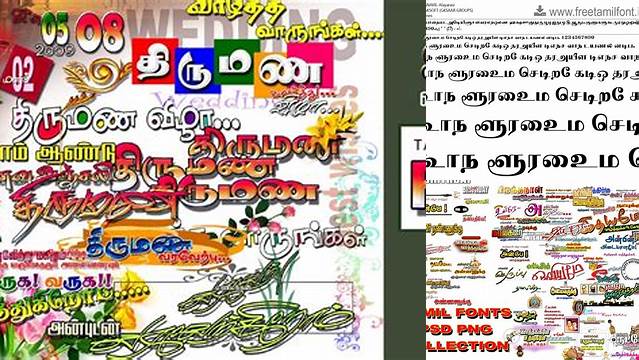
Tamil Font PSD Files: Download Free And Design Like A Pro
Tamil fonts are essential for anyone working with the Tamil language in graphic design. Whether you're creating posters, websites, or social media content, having access to the right fonts can make all the difference. This comprehensive guide provides everything you need to know about Tamil font PSD files free download, ensuring you can easily access and utilize these valuable resources. We'll cover the basics, explore the best places to find free downloads, and offer tips on how to use these fonts effectively in your design projects. So, let's dive in and discover how to get started with Tamil font PSD files free download!
Tamil Font PSD Files: What You Need to Know
Tamil font PSD files are essentially Photoshop files (.psd) that incorporate Tamil fonts. This means that when you open these files in Adobe Photoshop, you'll have access to pre-designed text layouts and elements using the Tamil script. This can be a huge time-saver, especially if you're new to Tamil typography or want to quickly create professional-looking designs. The benefit is you can easily customize the text, colors, and overall look of the design to suit your specific needs. These files can range from simple text effects to more complex designs with multiple layers and elements.
The use of Tamil font PSD files can save you a significant amount of time and effort, allowing you to focus on the creative aspects of your design. Also, it provides a great way to learn about Tamil typography and design techniques by examining pre-made layouts and effects. Whether you're a professional designer or a hobbyist, leveraging the power of Tamil font PSD files free download can greatly enhance your ability to create visually appealing content in the Tamil language. Don't hesitate to experiment with different files and explore the possibilities that these resources offer.
Finding the Right Tamil Fonts
When searching for Tamil font PSD files free download, it's essential to understand the different types of Tamil fonts available. There are various styles, from traditional to modern, each with its own unique characteristics. Some fonts are designed for headlines, while others are better suited for body text. When choosing a font, consider the overall tone and style of your design. For example, a formal document might require a traditional font, while a social media post might benefit from a more modern and playful font. Exploring different fonts is an important factor.
Once you have the fonts installed, you can open the PSD file and begin editing. You can change the text, colors, and other elements to match your design vision. Experimenting with different fonts and styles can help you create unique and eye-catching designs. If you're unsure which font to use, try experimenting with a few different options. This will help you find the perfect font that complements your design and effectively communicates your message.
Optimizing Your Design with Tamil Fonts
Optimizing your design with Tamil font PSD files is about more than just choosing the right font; it's about ensuring your text is readable, visually appealing, and effectively conveys your message. Proper font selection is crucial, but equally important are elements like font size, spacing, and color. When using Tamil fonts, it's important to choose fonts that are designed for digital use. These fonts often have better readability on screens than fonts designed for print. Consider the environment in which your design will be viewed when choosing a font. Designs intended for mobile devices may require different font choices than those intended for print or desktop screens.
Font size plays a critical role in readability. Ensure that your text is large enough to be easily read on the intended device. Be sure to maintain a consistent font size throughout your design to maintain a professional and coherent look. The spacing between letters (kerning), words (tracking), and lines (leading) also impacts readability. Adjust these settings to ensure your text is not too cramped or too spread out. This can make a huge difference in the overall aesthetics. Don't underestimate the importance of color. Choose colors that complement your font and background. Ensure that there is sufficient contrast between the text and the background to ensure readability. Experiment with different color combinations to find what works best for your design.
Customizing Tamil Font PSD Files
Customizing Tamil font PSD files allows you to make the pre-designed templates truly your own. You're not just limited to the original design elements; you can transform them into something that perfectly fits your needs and style. The first step is always to open the PSD file in Adobe Photoshop. Once the file is open, you'll see the different layers that make up the design. Each layer may contain different elements, such as text, shapes, and images. You can select each layer to make changes.
11. Tips for Editing and Modifying Text in Tamil Font PSD Files
Editing and modifying text in Tamil font PSD files is a fundamental skill for designers seeking to adapt pre-designed templates. Adobe Photoshop is the main platform for editing text elements. First, open the PSD file. Select the text layer you want to modify in the Layers panel. Click on the text layer to select it. Then, use the text tool (usually represented by a